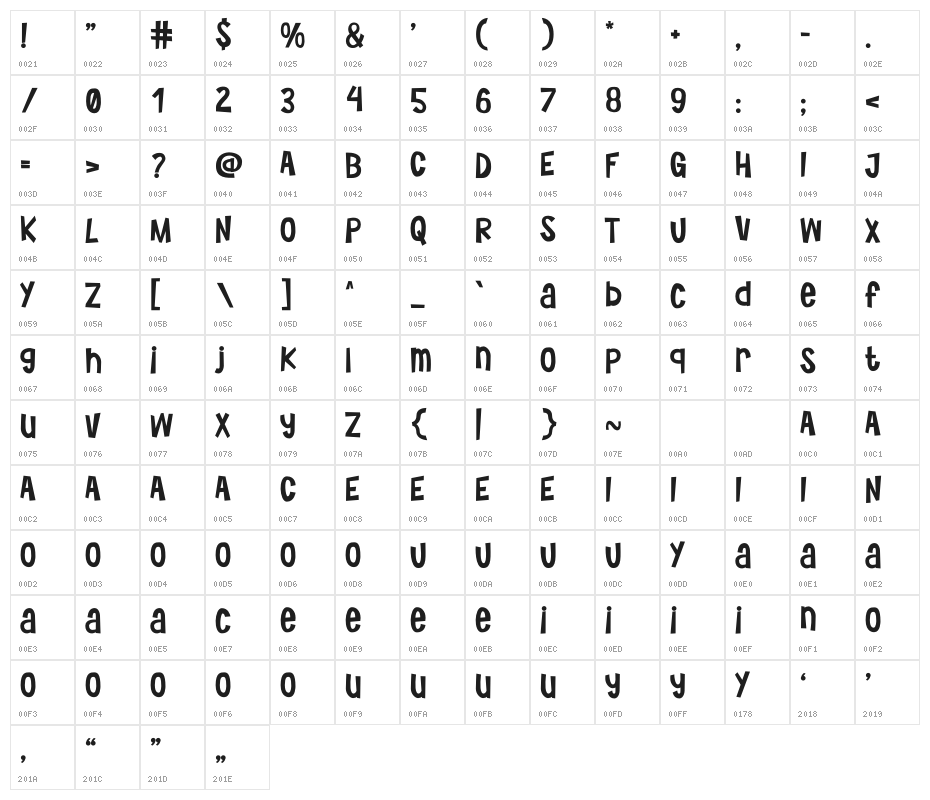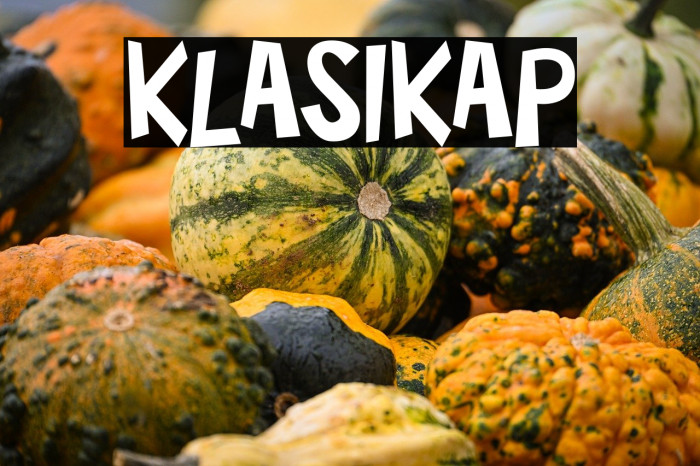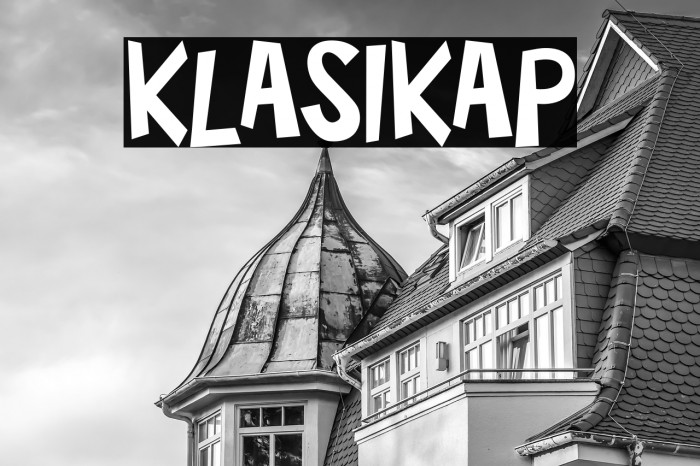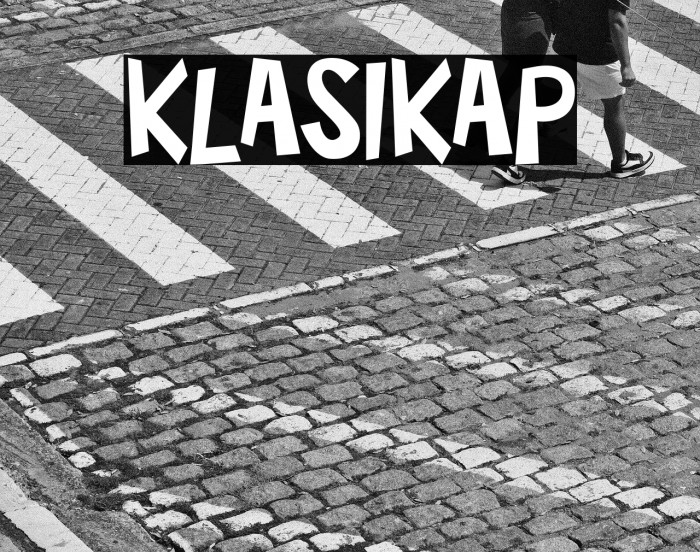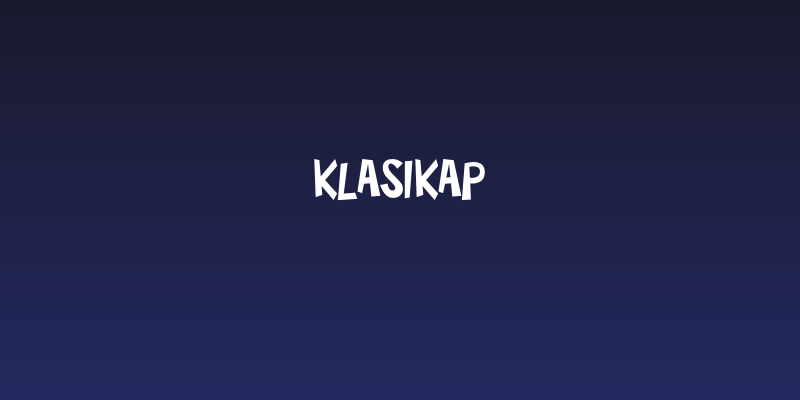
KLASIKAP Font
KLASIKAP Description
This playful and bold font features a whimsical, hand-drawn style with a slightly irregular baseline, giving it a lively and dynamic appearance. The characters are thick and rounded, with a slight tilt that adds to the casual and friendly feel. The uppercase and lowercase letters maintain a consistent style, with the lowercase letters being slightly more compact. The numerals and special characters follow the same playful aesthetic, making the font versatile for various creative projects. Its unique style makes it stand out, perfect for designs that require a touch of fun and personality.
| Overall Style | Playful, Whimsical |
| Use Case | Headlines, Posters, Branding |
| Proposed Projects | Ideal for children's books, playful branding, posters, and greeting cards. |